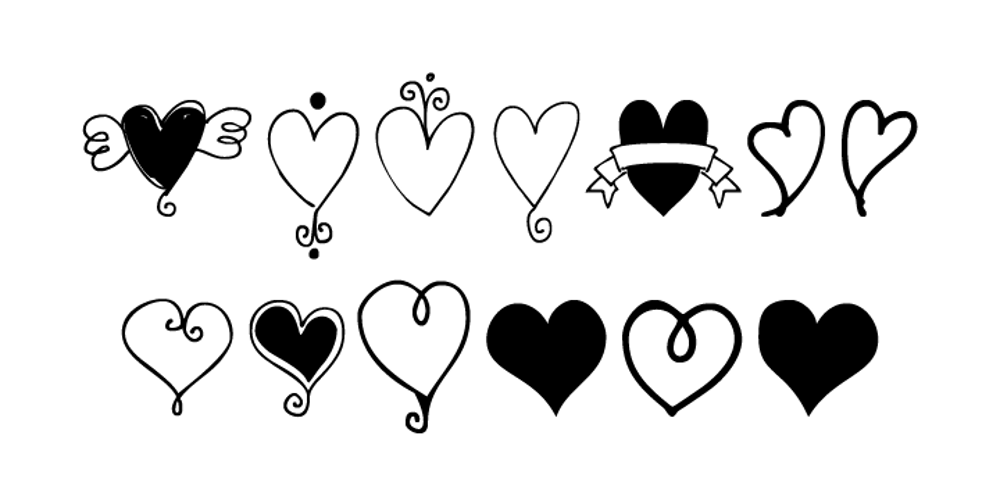
Heart Doodles Font Family was designed by Rae Kaiser and published by Outside the Line. Heart Doodles contains 1 styles and family package options. Here are 29 hearts to say “I love you” through out the year. Some are stand-alone hearts and others have matching hearts for creating all-over heart patterns or a series of similar but slightly different hearts. Created in the same style as Outside the Line’s other Doodle fonts.